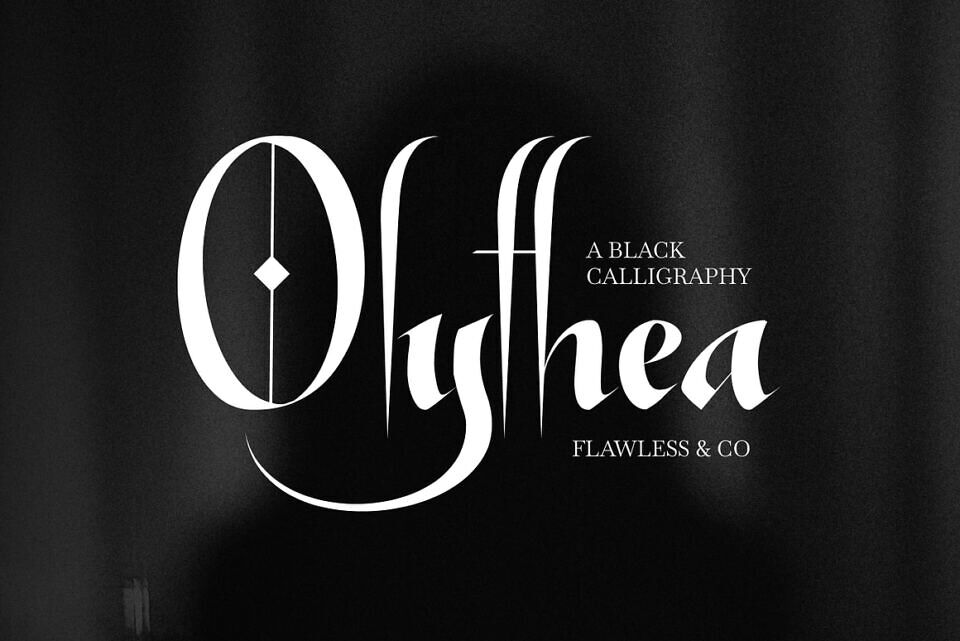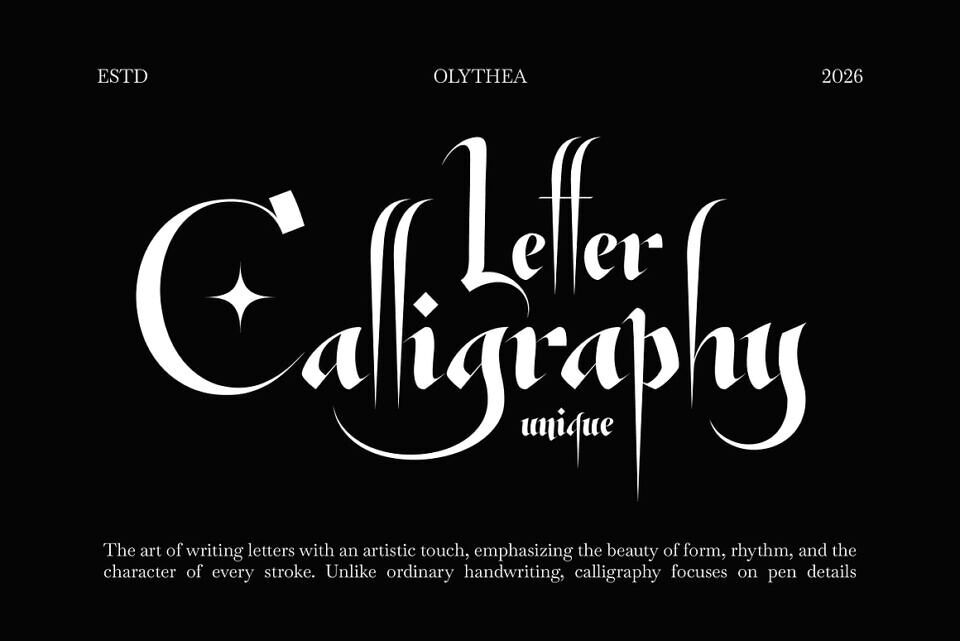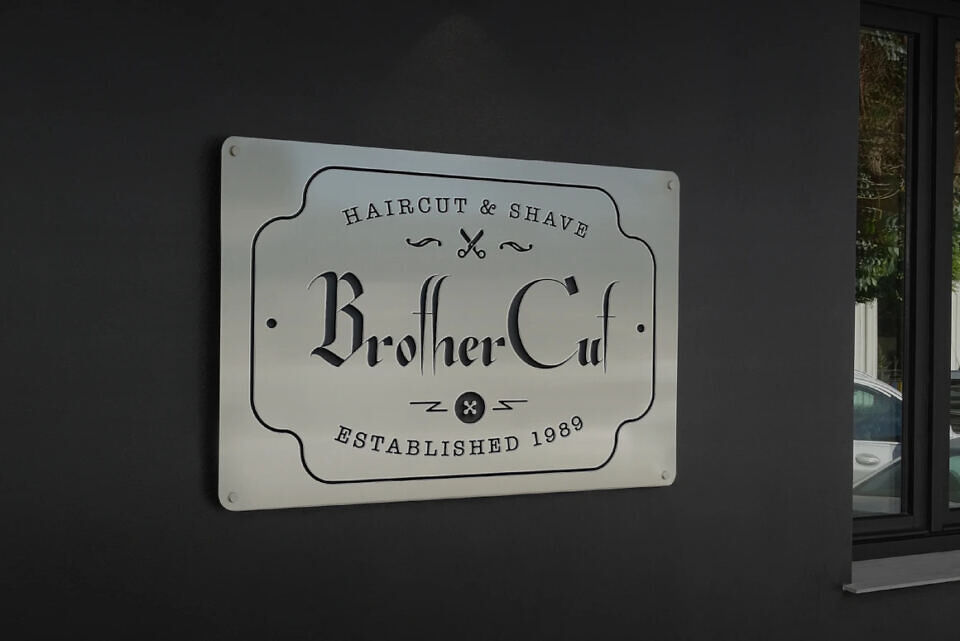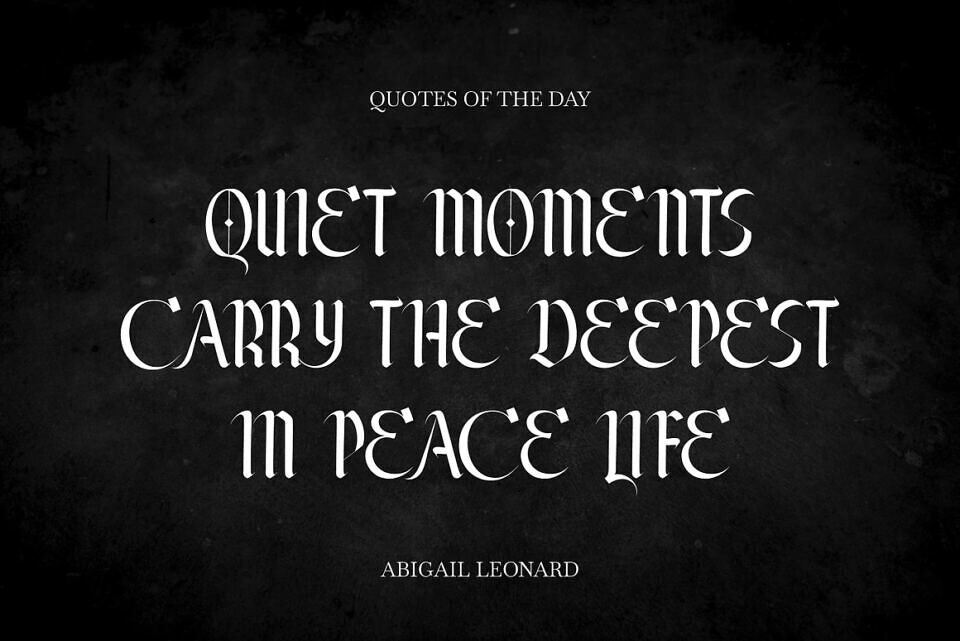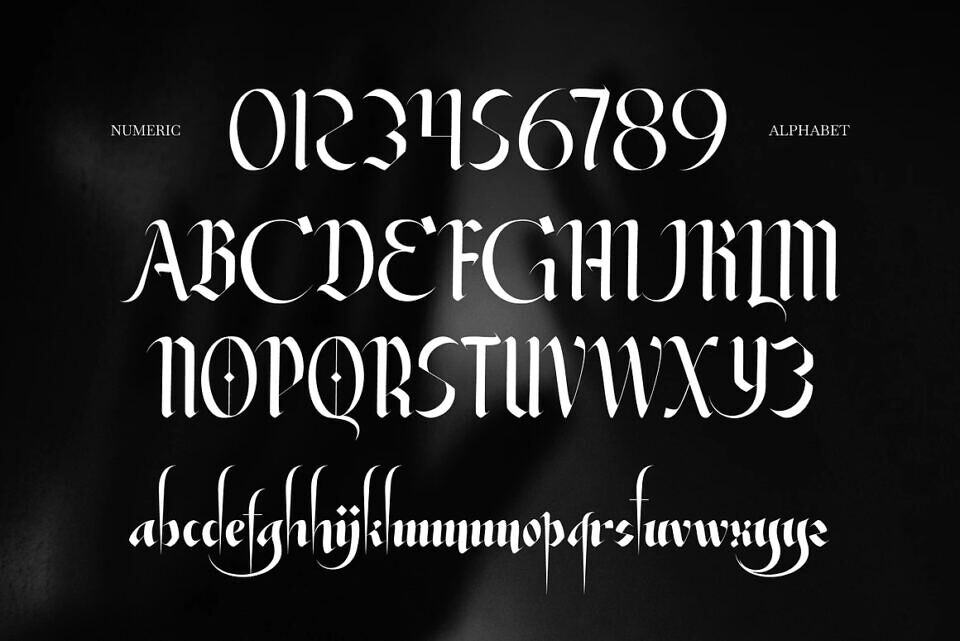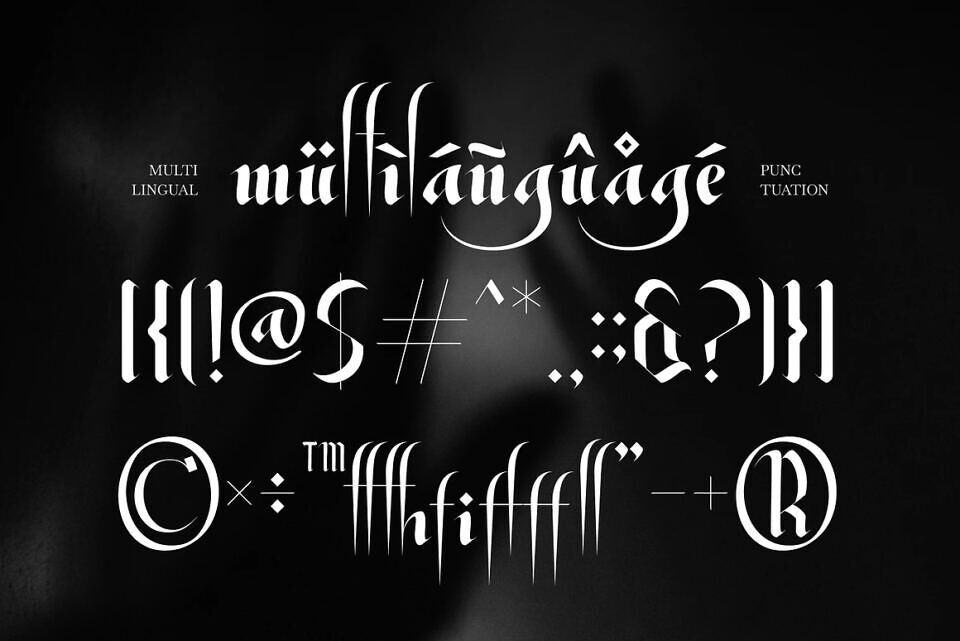
Olythea Font
Olythea is a black calligraphy font inspired by classic handwritten calligraphy with a dark and elegant character. Featuring sharp curves, flowing strokes, and distinctive letterforms, Olythea brings a dramatic and refined gothic atmosphere to your typography.
The font combines the expressive movement of calligraphy with subtle gothic influences, creating a unique style that feels mysterious, elegant, and classy. Its carefully crafted strokes provide a balanced look that maintains readability while delivering a strong visual identity.